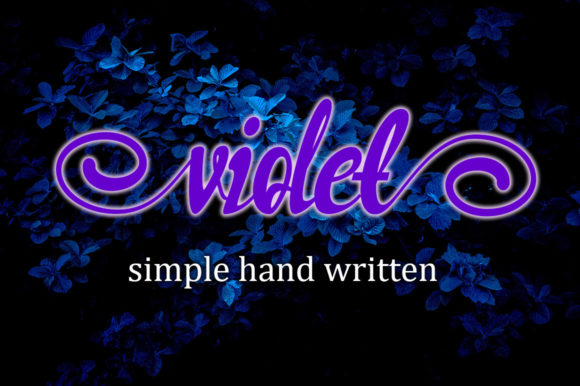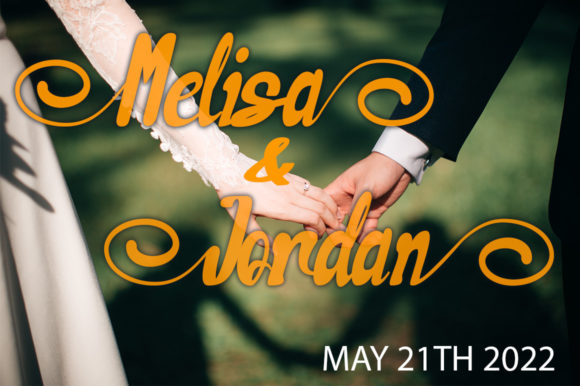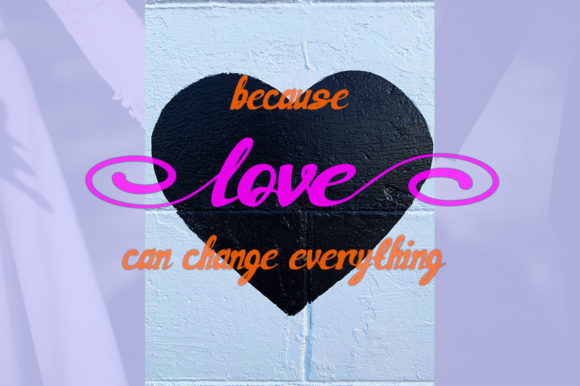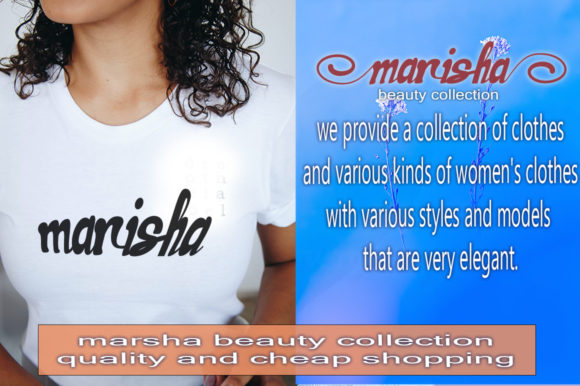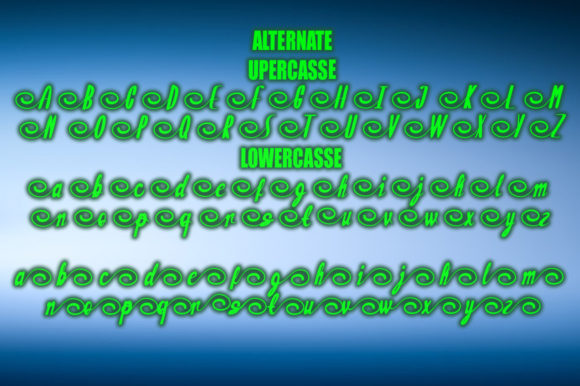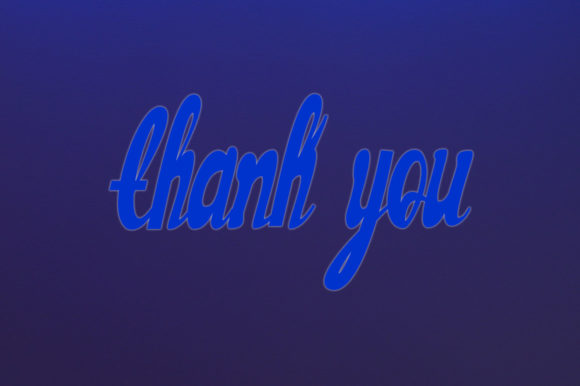
About Violet Font
violet is a lovely and timeless handwritten font. It is the best choice for creating eye catching logos, branding and quotes. Every letter has a unique and beautiful touch, which will make your design come alive!